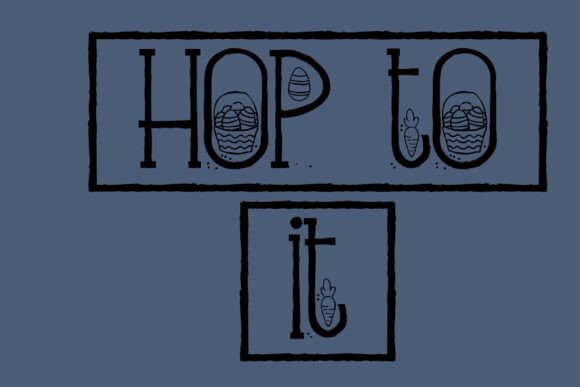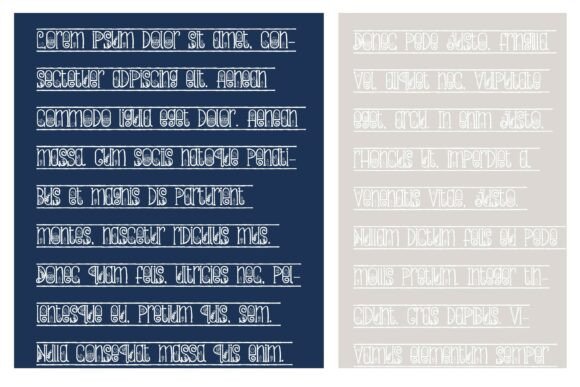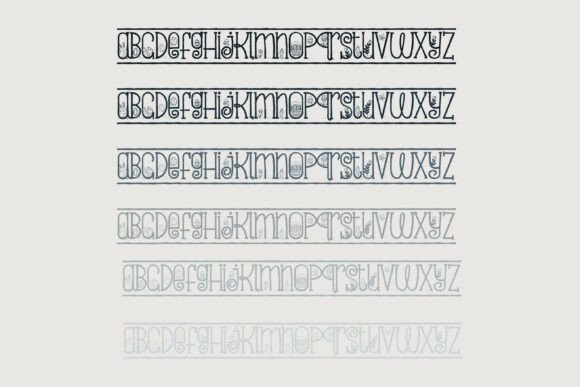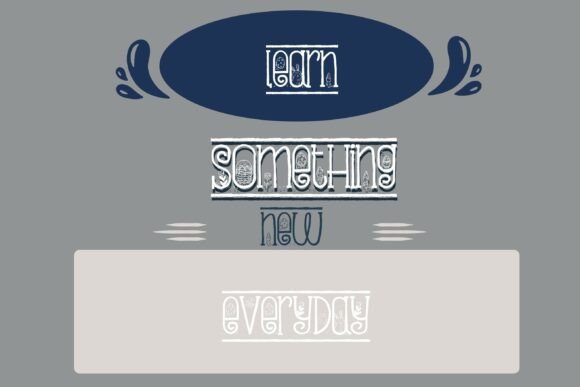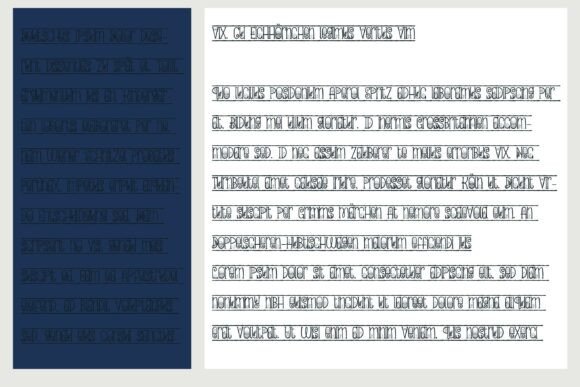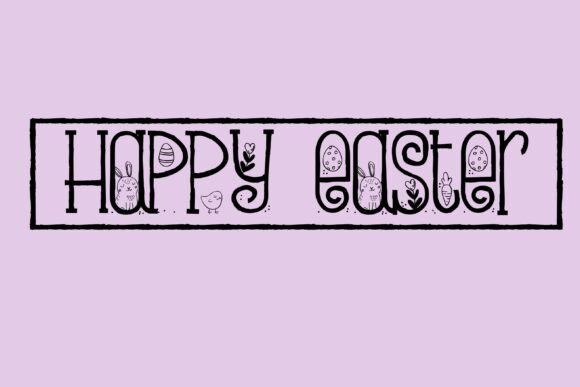
The Easter Border Font: A Whimsical Addition to Your Design Arsenal
I’ll never forget the time I was working on an Easter-themed project for a client, and I just couldn’t find the perfect font to match the whimsical and playful vibe I was going for. That was until I stumbled upon the Easter Border Font – a hand-crafted, hand-written serif font that instantly brought my design to life. In this article, I’ll share my experience with this charming font, its features, and how to make the most of it in your designs.
Here’s what I love about the Easter Border Font:
- ✨ Unique Easter-themed imagery throughout, making it perfect for seasonal designs
- ✅ Hand-crafted, hand-written feel that adds a personal touch to any project
- ⚡️ Easy to use and pairs well with a variety of other fonts
- 🎉 The self-made border feature, which can be completed by typing rectangle brackets, adds a fun and creative element
A few things to keep in mind:
- ⚠️ The font’s uniqueness might make it less suitable for formal or corporate designs
The Story Behind the Easter Border Font
The Easter Border Font was designed with the intention of capturing the whimsical and playful spirit of Easter. The creator wanted to craft a font that would not only be beautiful but also evoke the feeling of handmade, personal notes and cards. The result is a unique and charming font that’s perfect for a range of design projects.
| Font Name | Easter Border Font |
| Author | Illustration Ink |
| What is the Easter Border Font best used for? | The Easter Border Font is best used for designs that require a whimsical and playful touch, such as Easter-themed projects, invitations, greeting cards, and other creative endeavors. |
| Is the Easter Border Font suitable for formal designs? | While the Easter Border Font is a beautiful font, its unique and playful nature might make it less suitable for very formal designs. However, it can still be used in formal contexts if paired with more traditional fonts. |